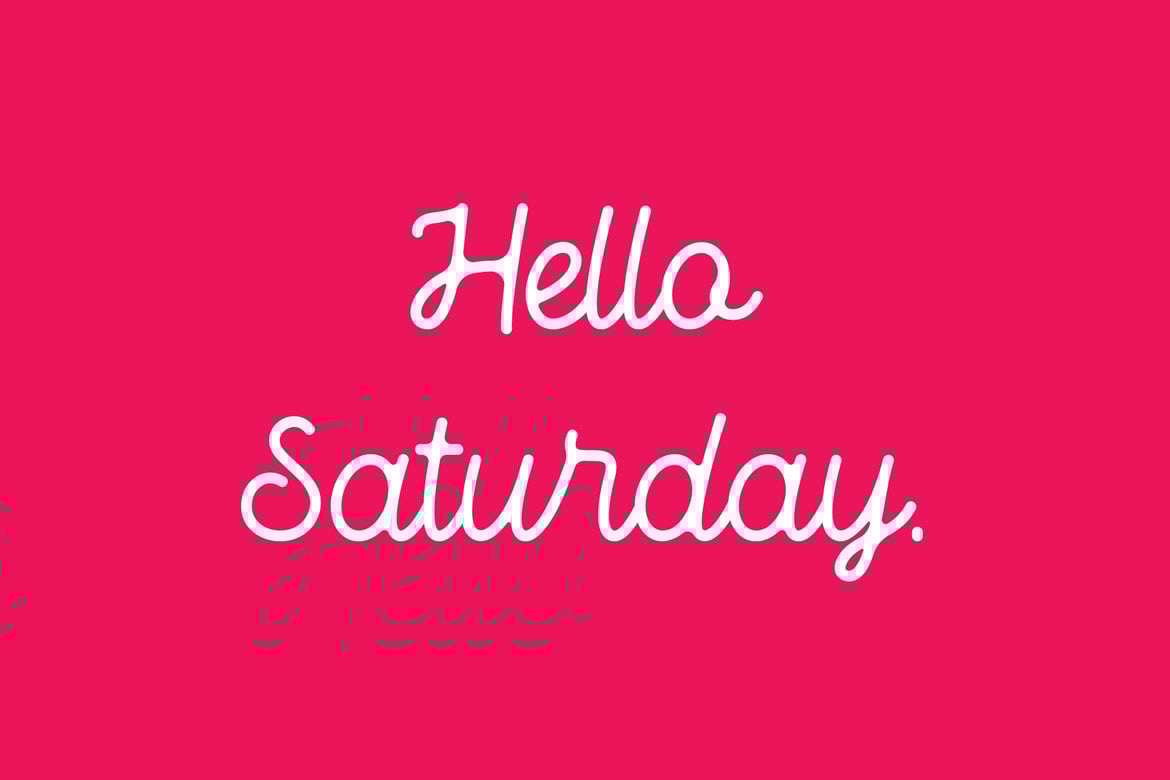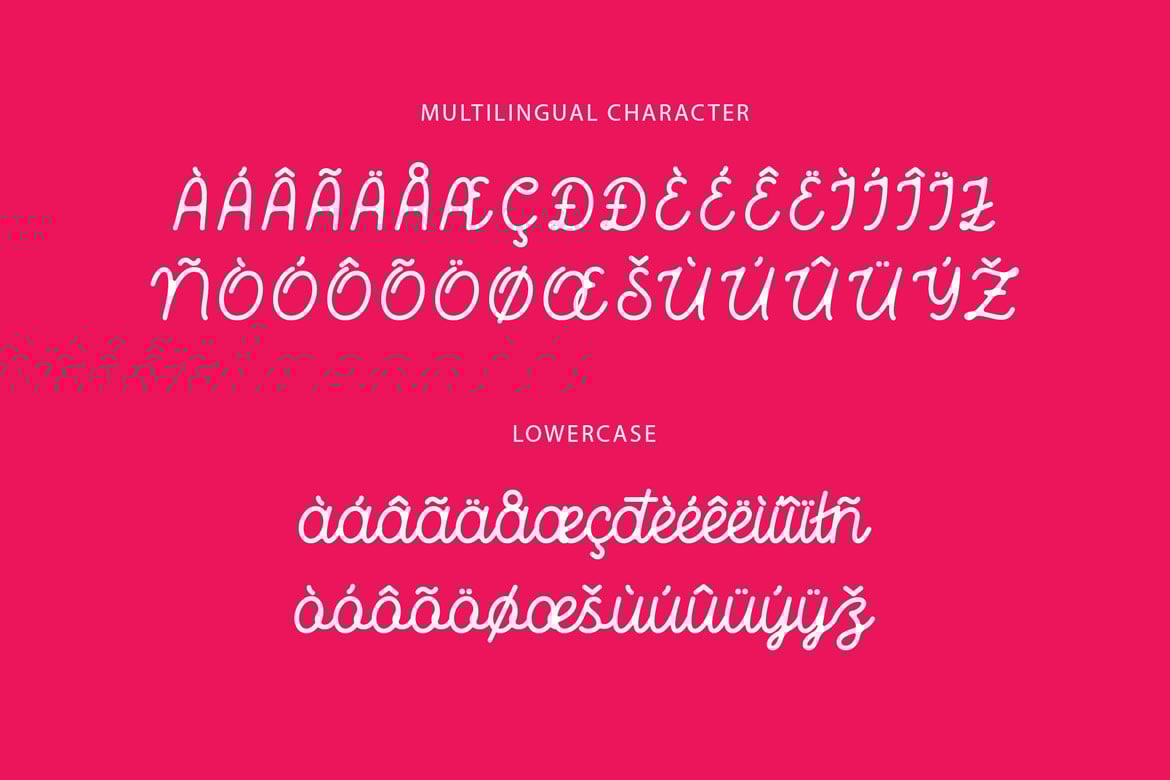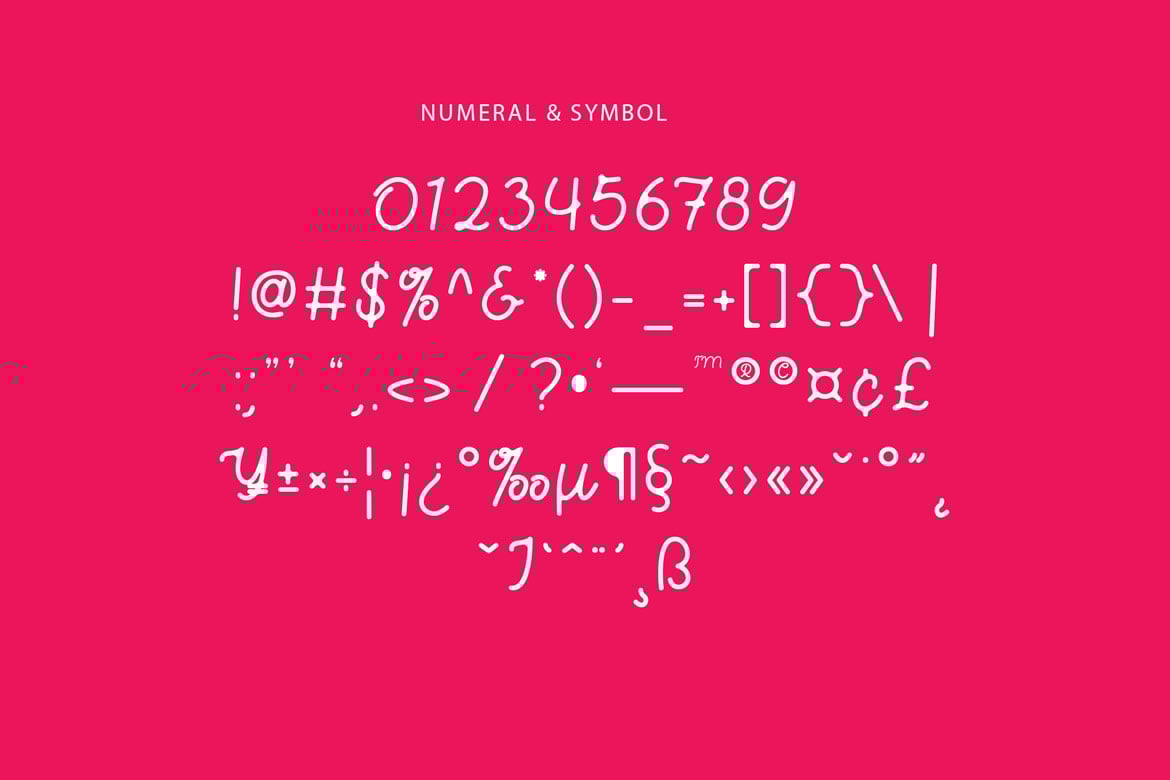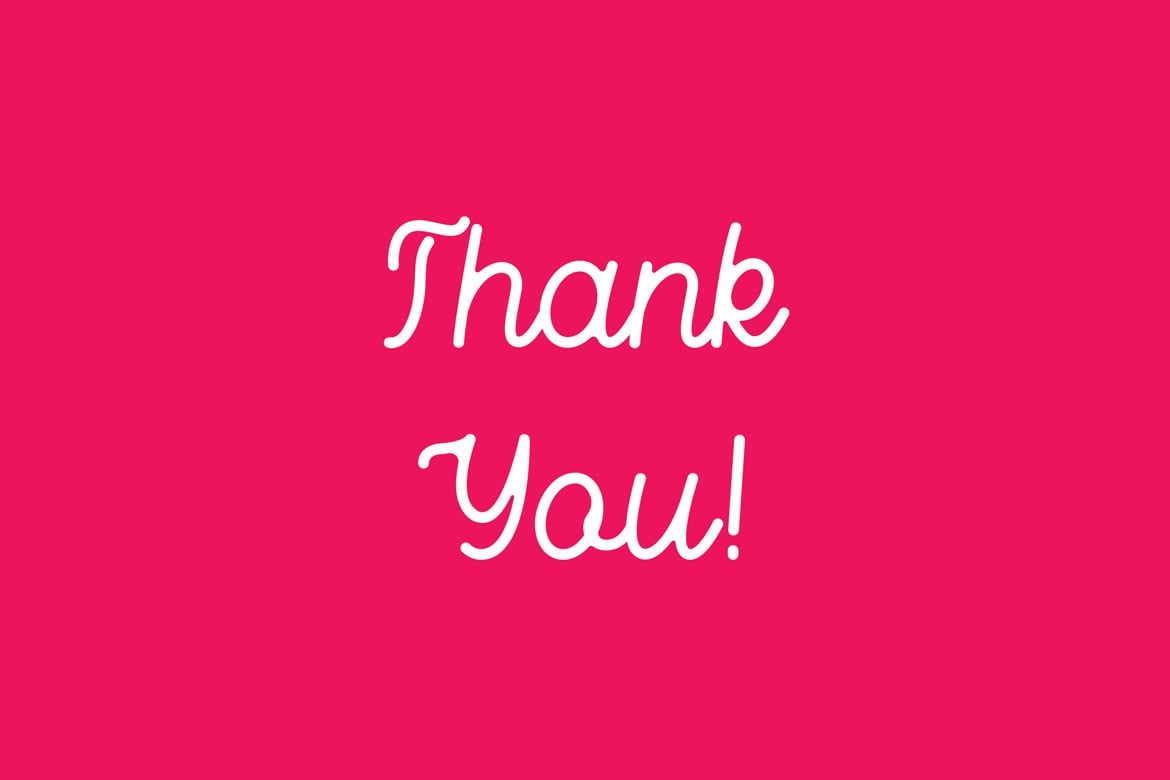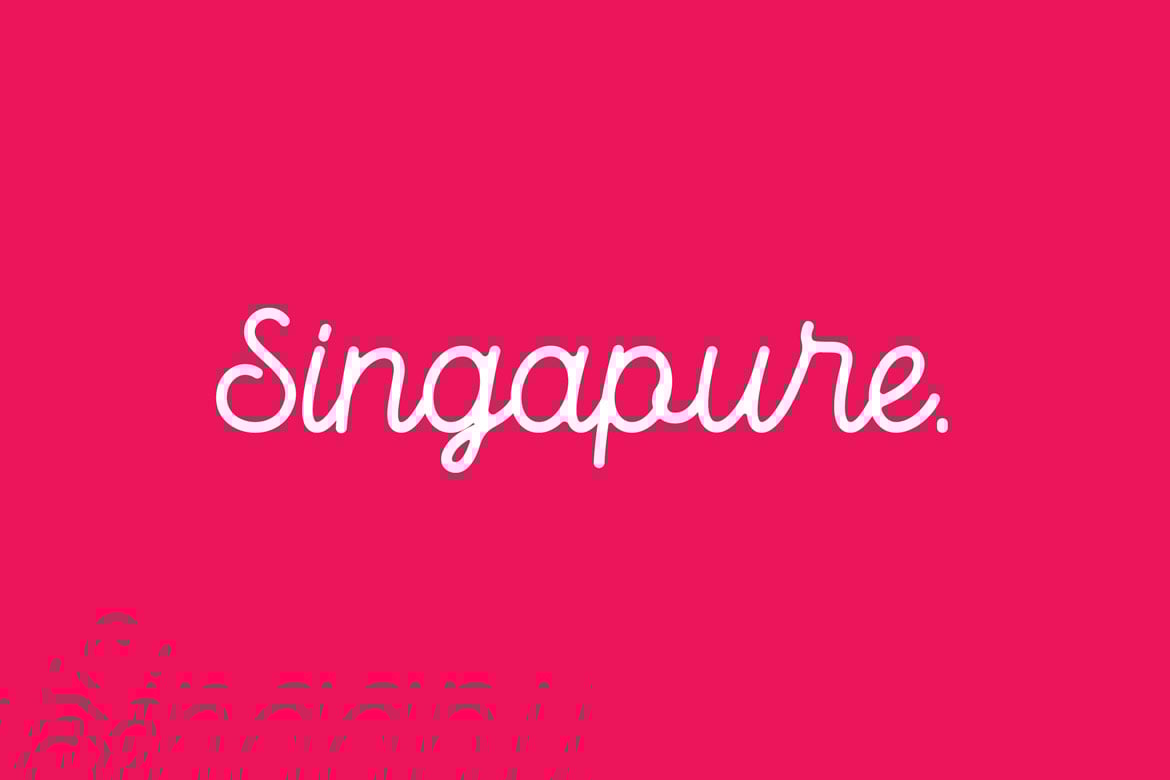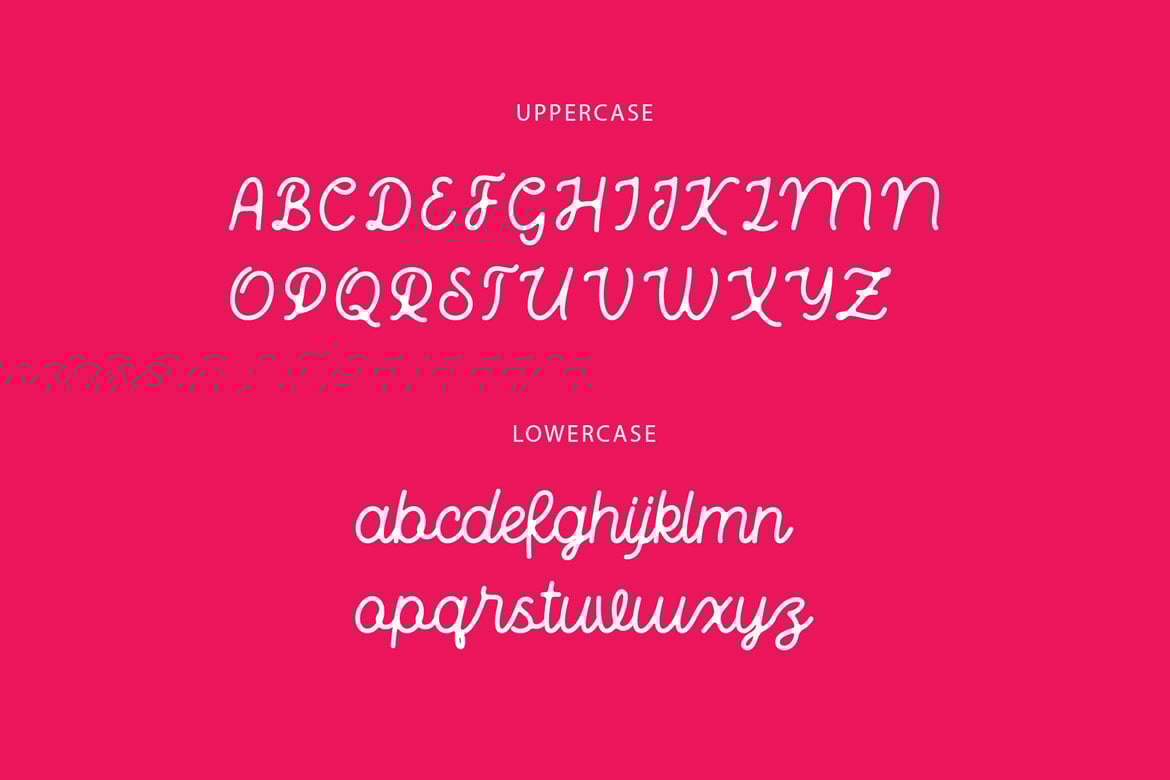
Bhamious – Monoline Script Font
Bhamious – Monoline font, It has a elegant, classy look and cool. It’s a great font for fashion,
apparel projects, signature, album cover, logo, branding, magazine, social media, & advertisements,
but also works great for other projects.
- The perfect font choice for powerful projects – watermarks, signatures, photography, logos, business cards, quotes,
album covers.